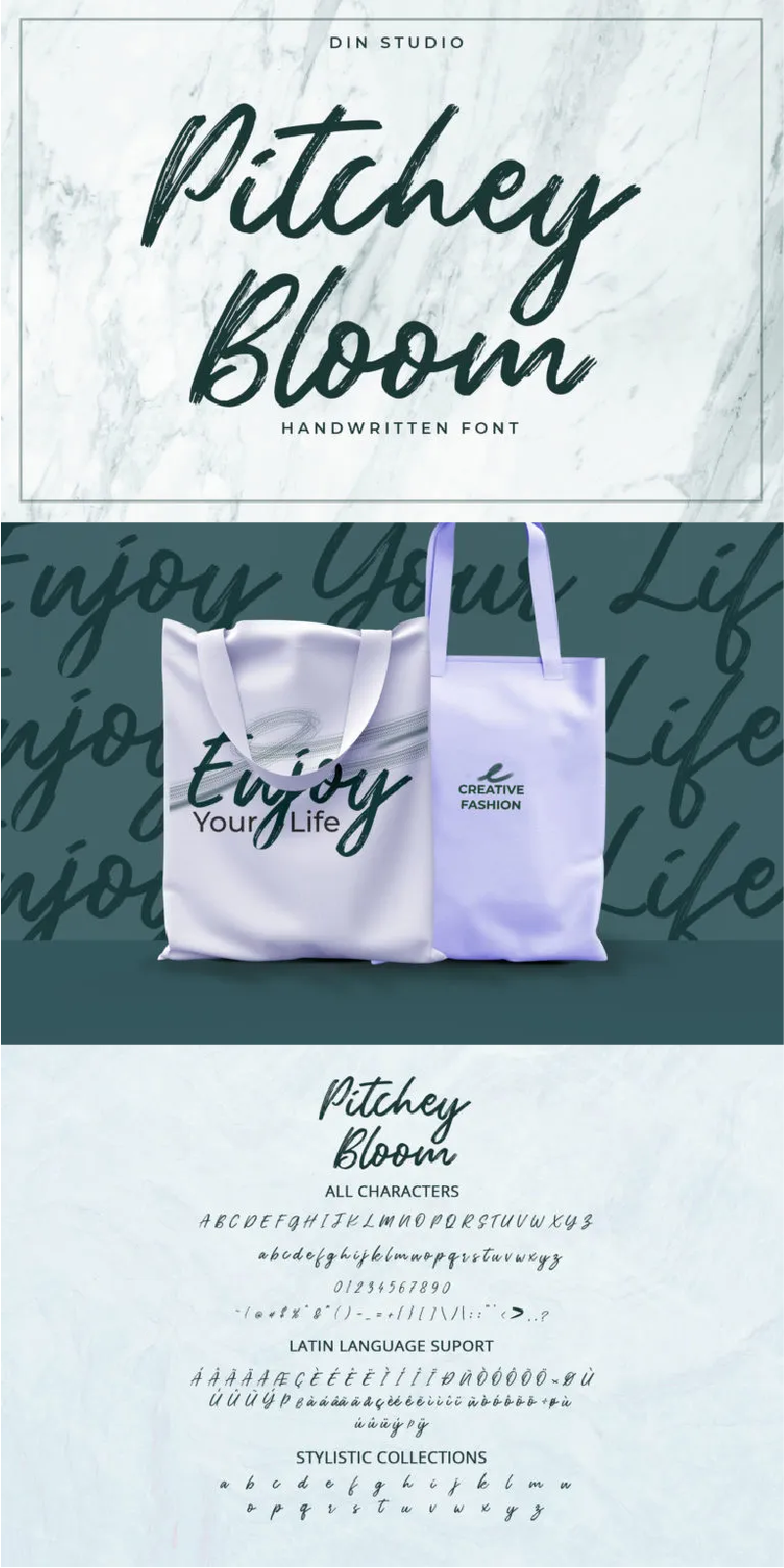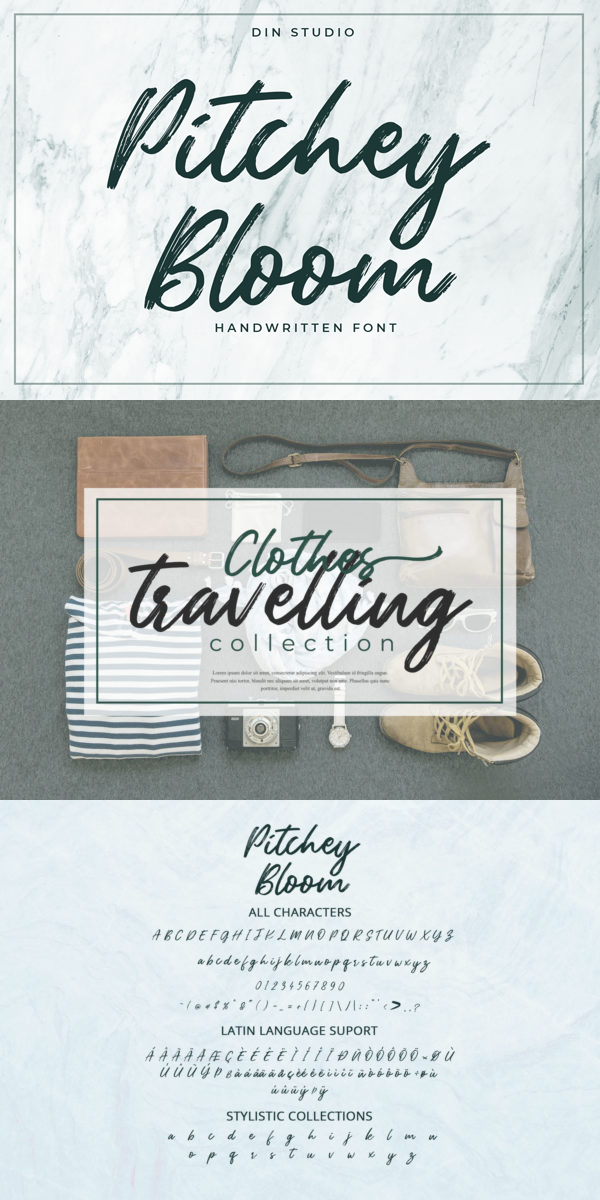
Pitchey Bloom Font
About Pitchey Bloom
Pitchey Bloom is a modern handwritten font. With a classy and natural handwritten style, it brings a classy and beautiful typeface. It is best used for branding, advertisement, invitation, merchandise, logotype, and quotes. The font includes full set of hand lettered uppercase and lowercase letters, numerals, punctuation, and ligatures. This font giving realistic hand lettered style.
-Stylistics Set